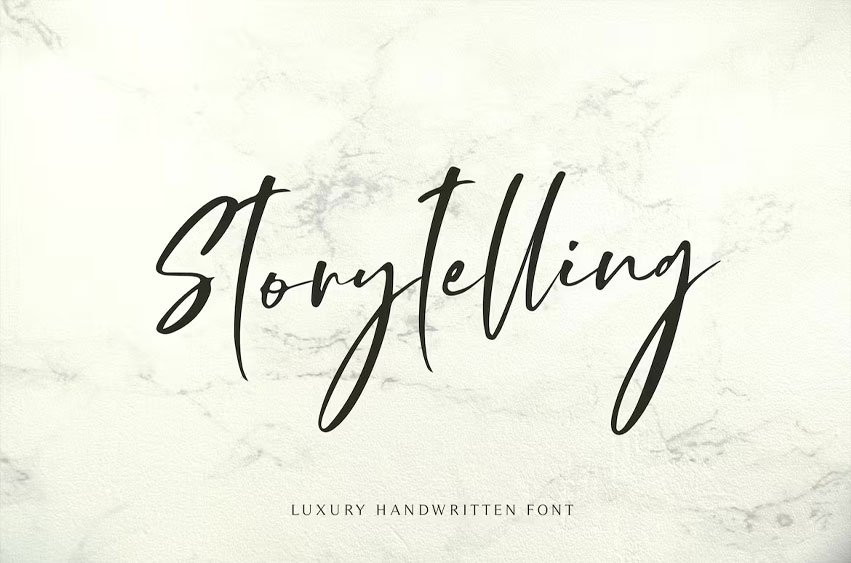
Storytelling Font is luxury and elegant modern calligraphy with natural handwriting style. It’s great for various design purpose that need classy feels such as logo, social media, wedding, branding, business card, and many more.
Storytelling contains uppercase, lowercase, numeral & punctuation, multilingual, ligature, and already PUA encoded.